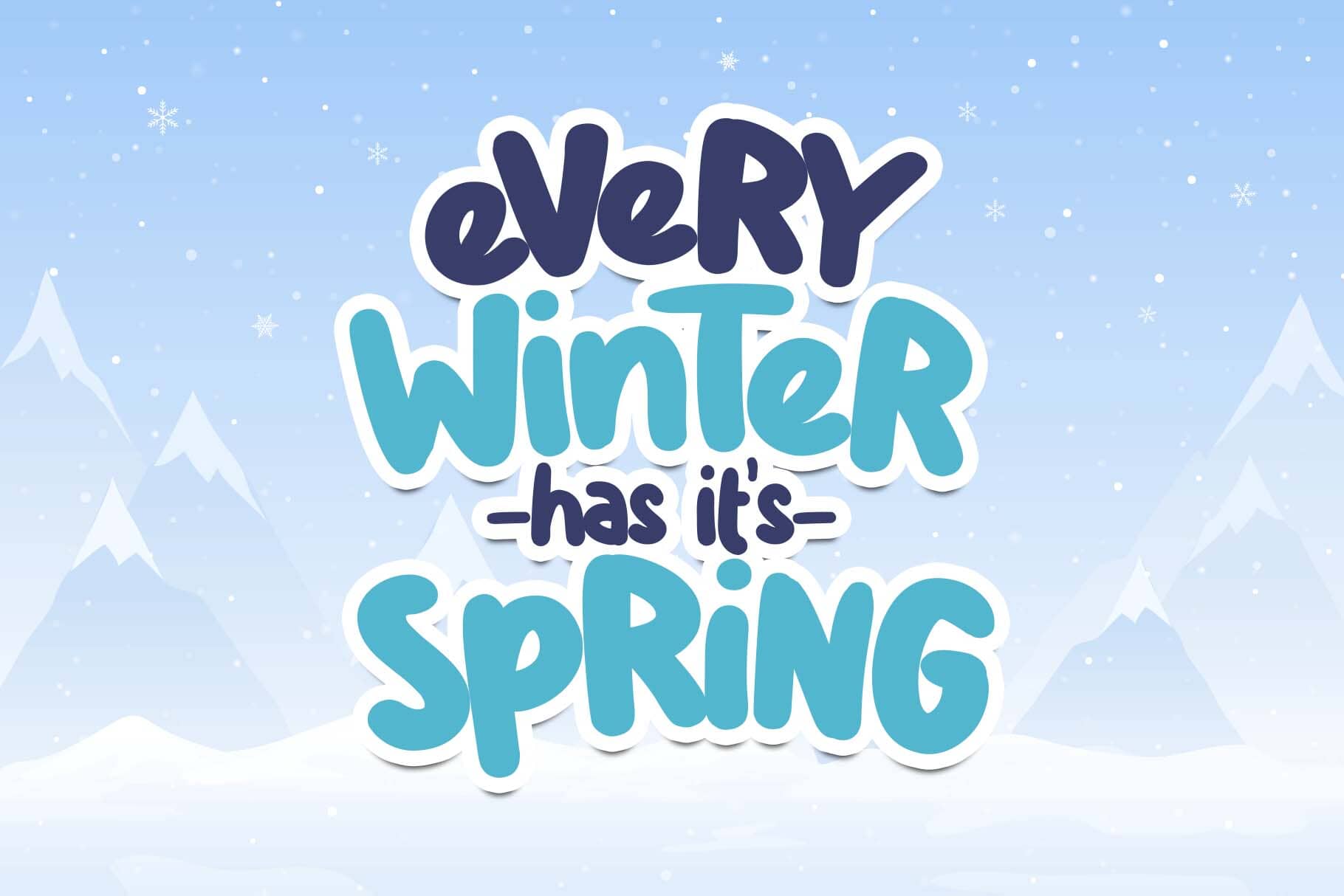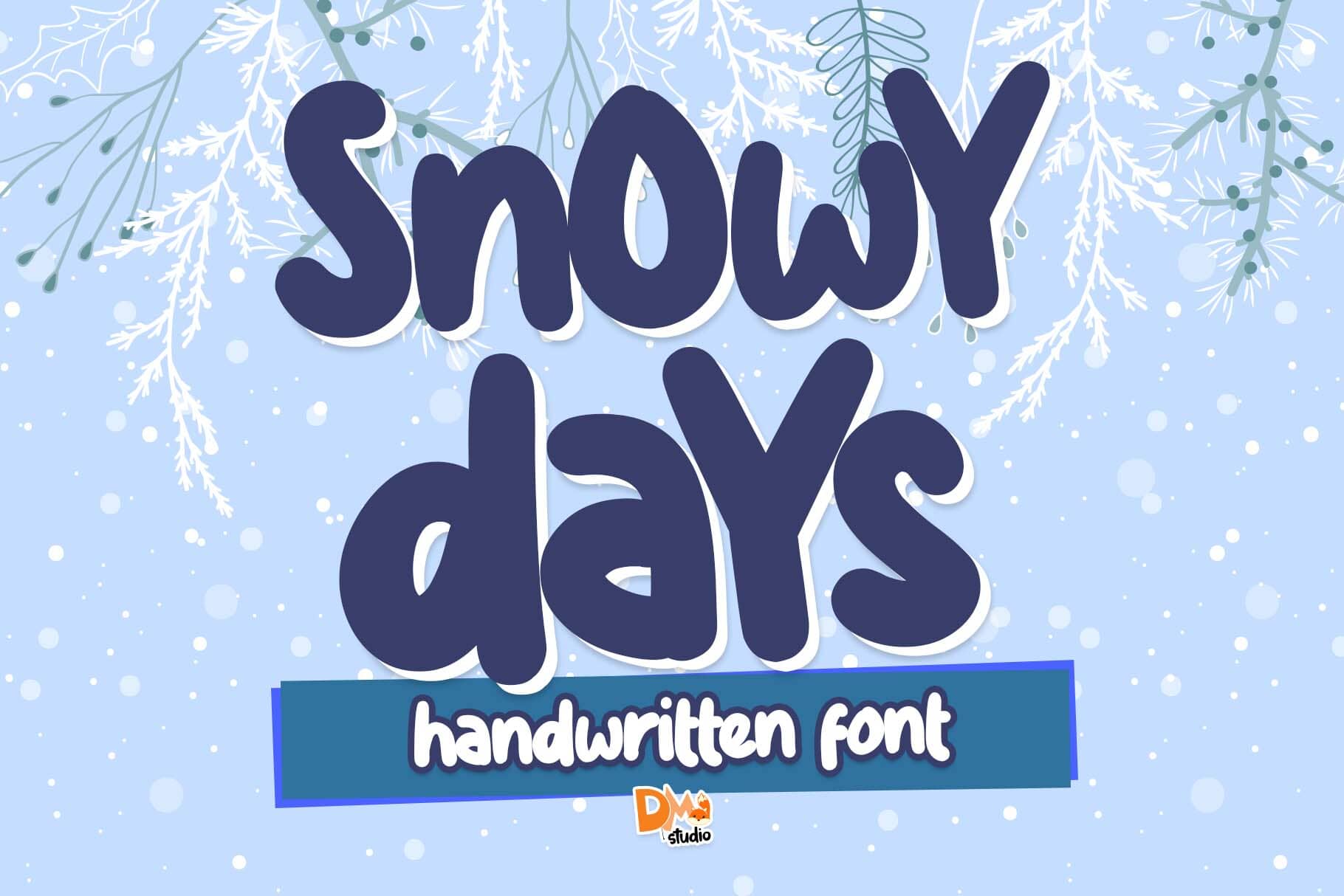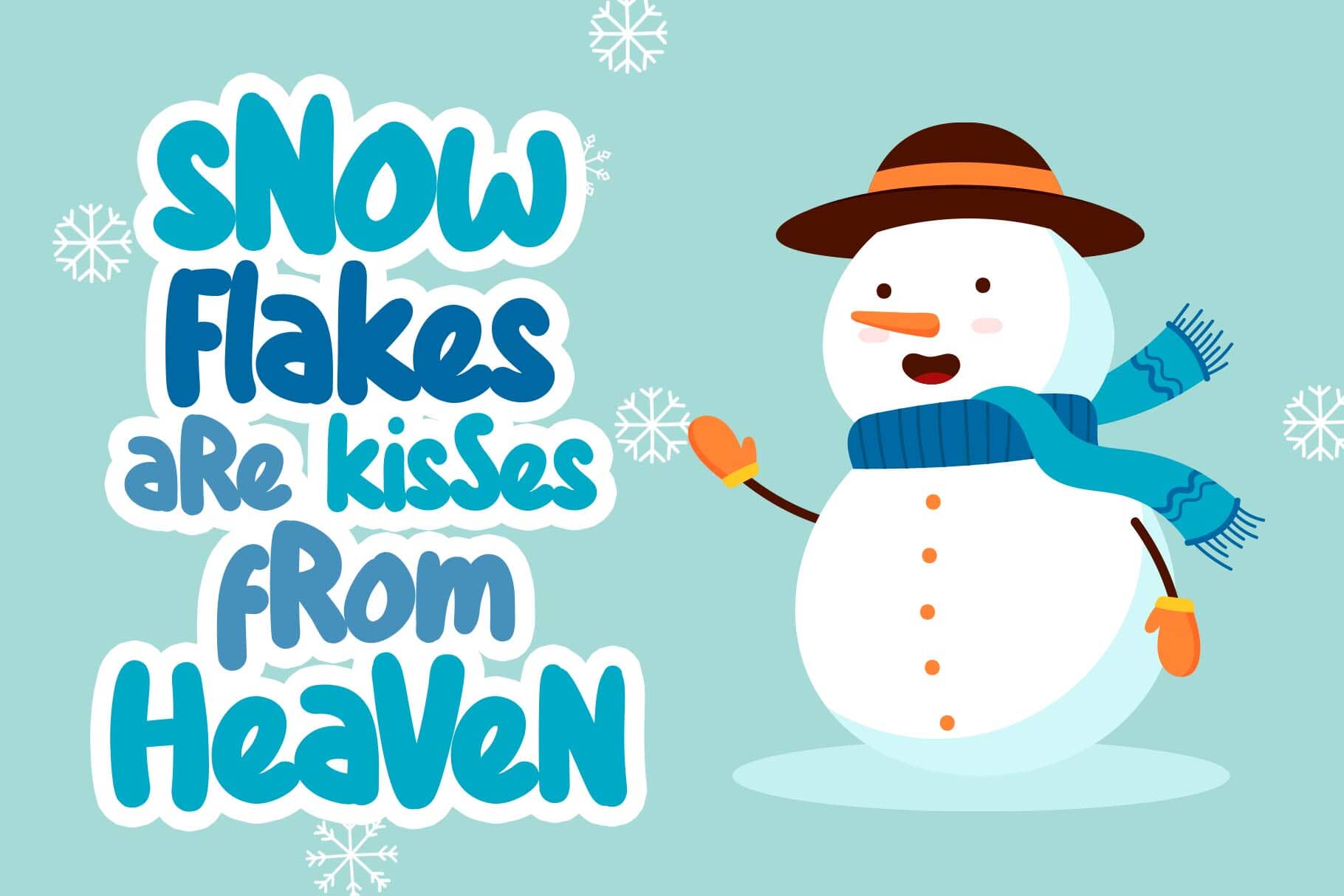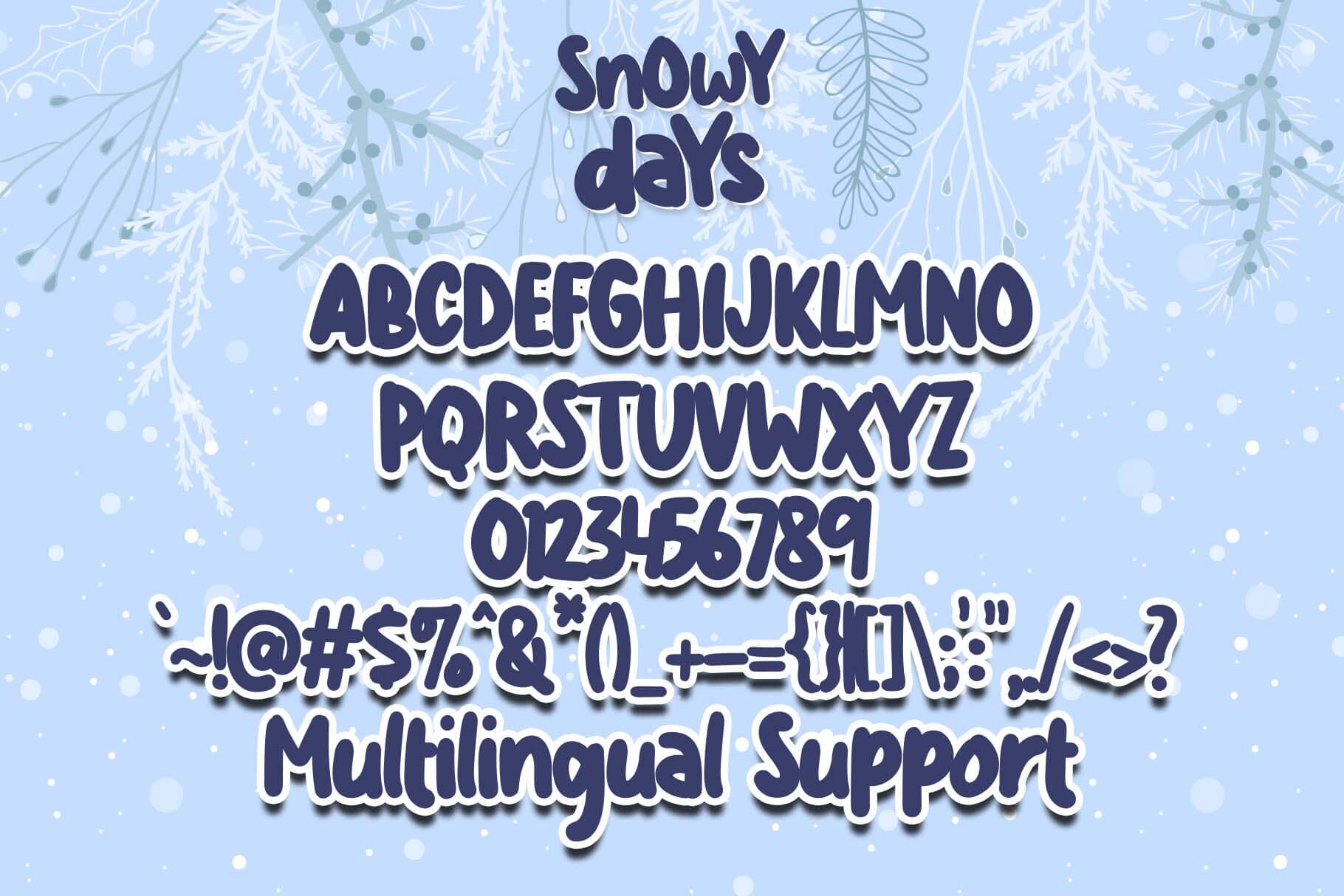
Snowy Days Font – A Whimsical Typeface for Winter-Themed Designs
Bring the magic of winter to your design projects with the Snowy Days font, a charming and whimsical typeface that captures the beauty of snowy landscapes. Designed to evoke a cozy and festive atmosphere, this font is perfect for a variety of seasonal applications, including holiday cards, invitations, product packaging, and social media graphics. Whether you’re creating a heartfelt Christmas greeting or branding for a winter event, Snowy Days adds warmth and elegance to your text.
Perfect for Holiday and Seasonal Designs
The Snowy Days font is inspired by the peaceful and enchanting vibe of snowy days. Its rounded, flowing shapes and soft letterforms create a feeling of calm and celebration. This makes it a fantastic choice for any winter-themed design, including:
- Holiday cards and festive banners
- Gift tags and labels
- Seasonal event invitations
- Storefront signage and promotional materials
Features and Compatibility
The Snowy Days font includes a complete set of characters—uppercase, lowercase, punctuation, numerals, and special symbols—giving you full creative flexibility. It also supports multilingual characters, making it suitable for global holiday campaigns and projects.